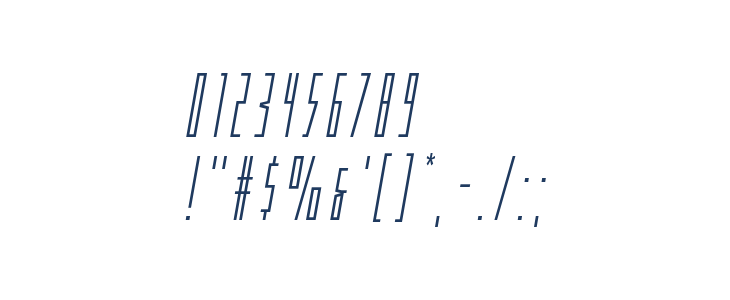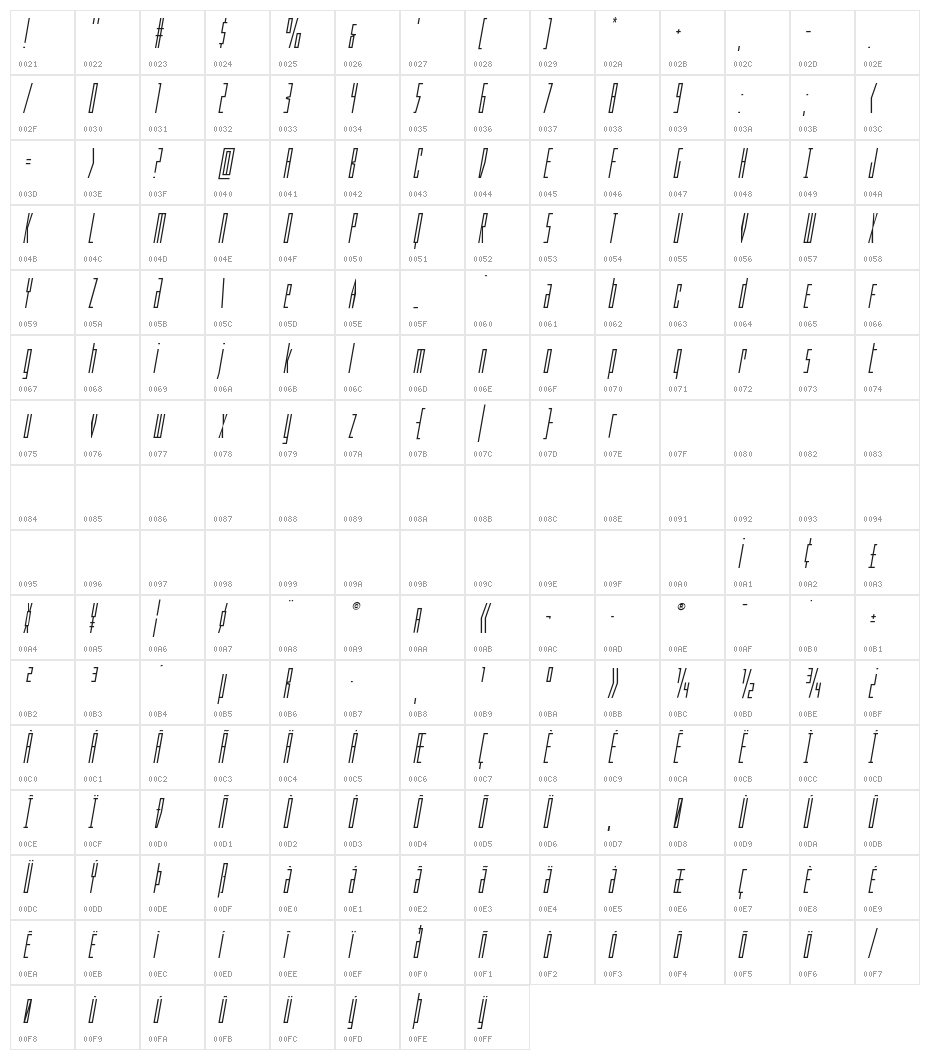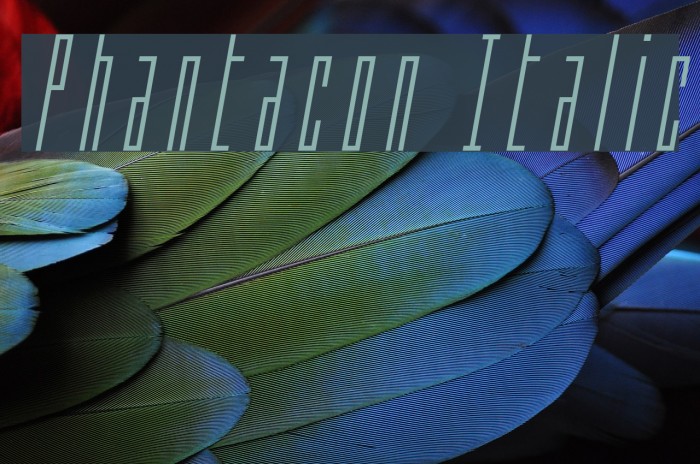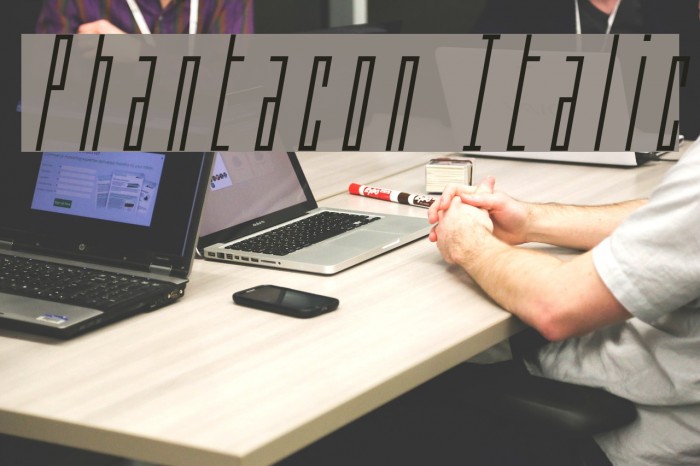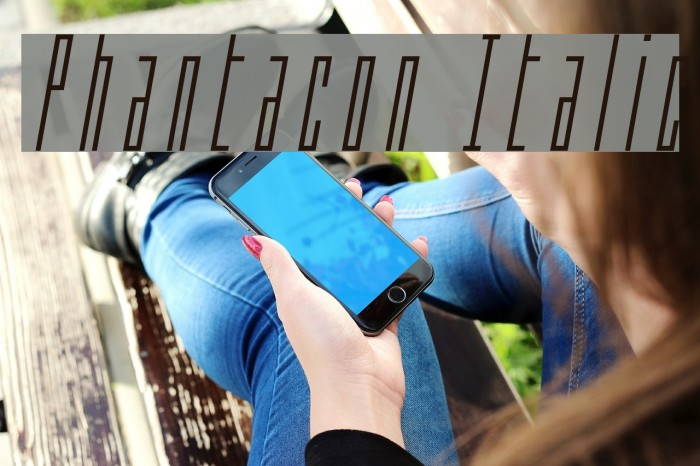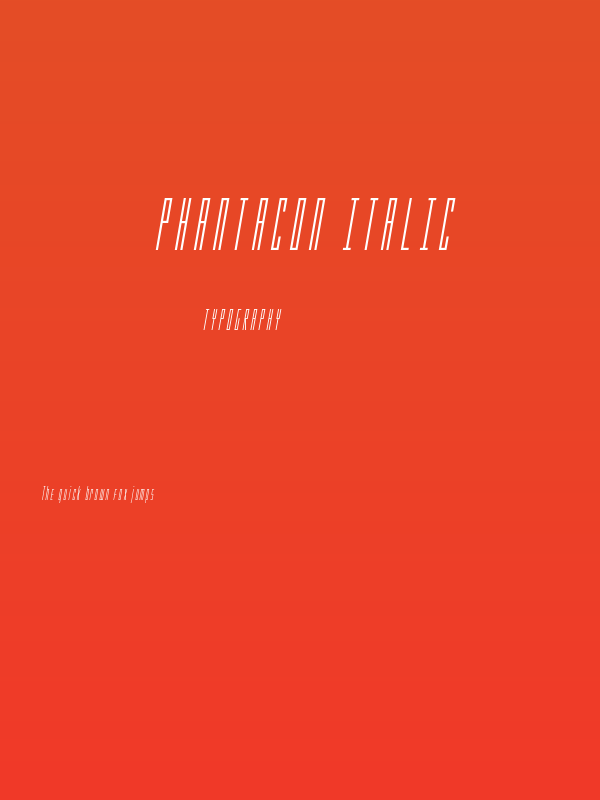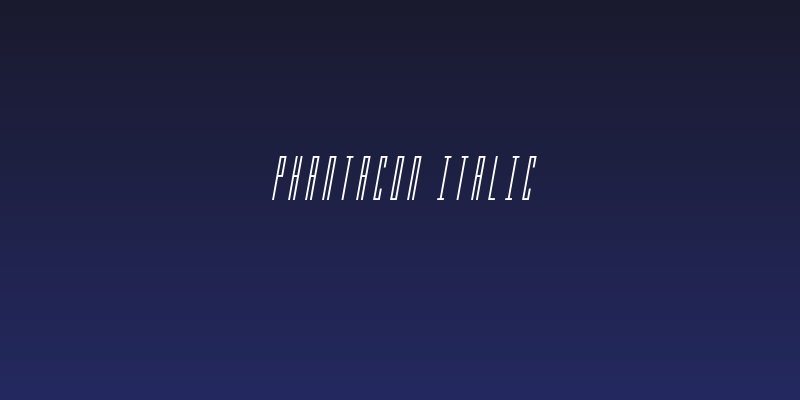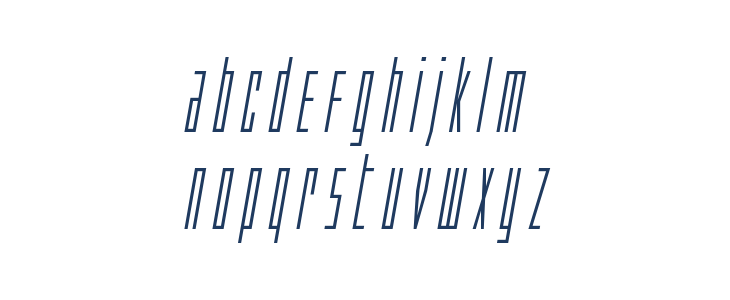
Phantacon Italic Font
Phantacon Italic Description
This font features a sleek, elongated design with a distinct italic slant, giving it a dynamic and modern appearance. The characters are narrow and tall, with consistent stroke widths that create a uniform look. The uppercase and lowercase letters maintain a cohesive style, while the numerals and special characters complement the overall aesthetic. The font's clean lines and sharp angles contribute to its futuristic and sophisticated feel, making it suitable for contemporary design projects.
Proposed ProjectsIdeal for branding, advertising, and editorial design where a modern and dynamic look is desired.